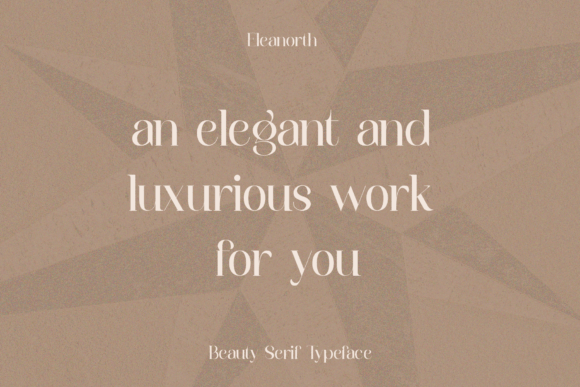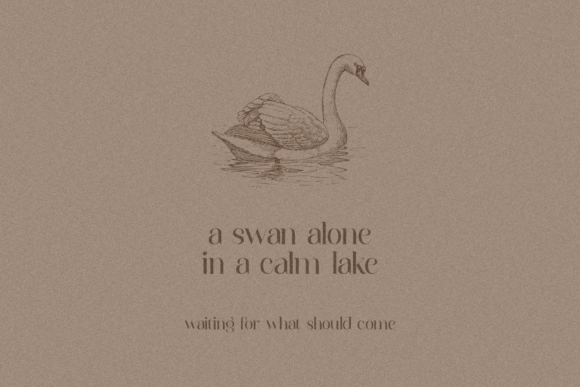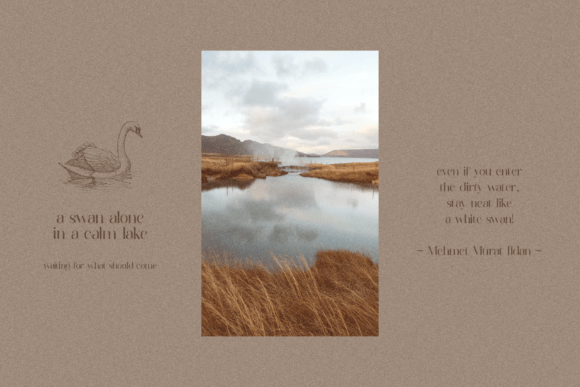
The Elusive Font: My Journey with Eleanorth
I still remember the design project that led me to discover Eleanorth. I was working on a luxury brand’s editorial, aiming for a sophisticated and elegant look. The client wanted a font that exuded modernity and chicness, but I was struggling to find the perfect fit. That’s when I stumbled upon Eleanorth, a serif font that instantly caught my attention with its fashionable touch.
As I explored Eleanorth, I realized it was designed specifically for luxury, elegant, feminine, and dashing projects. The font’s unique blend of classic and modern elements made it perfect for supporting modern and chic designs, such as logos, titles, and editorials.
An Honest Review of Eleanorth
- ✨ Sophisticated and charming serif design
- ✅ Perfect for luxury, elegant, feminine, and dashing projects
- ✅ Supports modern and chic designs, such as logos, titles, and editorials
While Eleanorth is an excellent font, there are a few things to keep in mind:
- ⚠️ Some users might find the font’s x-height a bit low, which can affect readability in certain contexts.
- 🤔 The font’s bold weights can be quite bold, so use them sparingly to avoid overwhelming the design.
Eleanorth was designed with the intention of creating a sophisticated and charming serif font that would cater to luxury, elegant, feminine, and dashing projects. The designer’s goal was to craft a font that would exude modernity and chicness, while maintaining a classic and timeless feel.
| Author | RT Studio |
Q: What type of projects is Eleanorth best suited for?
A: Eleanorth is perfect for luxury, elegant, feminine, and dashing projects, such as logos, titles, editorials, and more.
Q: Is Eleanorth a versatile font?
A: Yes, Eleanorth is a versatile font that can be used for a variety of design projects, from elegant editorials to modern logos.
Q: Can I use Eleanorth for digital and print projects?
A: Yes, Eleanorth is suitable for both digital and print projects. Its high legibility and sophisticated design make it perfect for a wide range of applications.